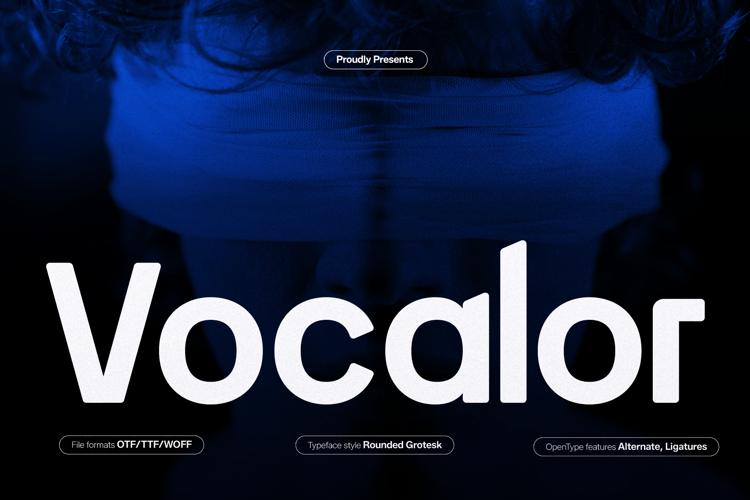
Vocalor Font
Vocalor | Rounded Grotesk, is suitable for any projects such as: logos, branding projects, homeware designs, product packaging, mugs, quotes, posters, shopping bags, t-shirts, book covers, name card, invitation cards, greeting cards, label, photography, watermark, special events, and all your other lovely projects that need a sans Font taste.